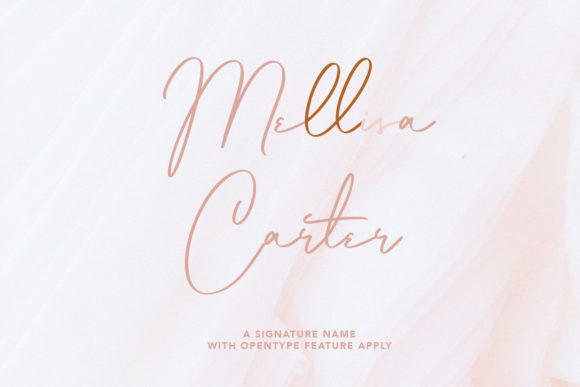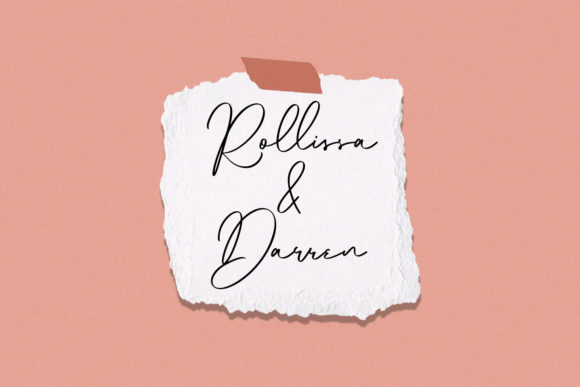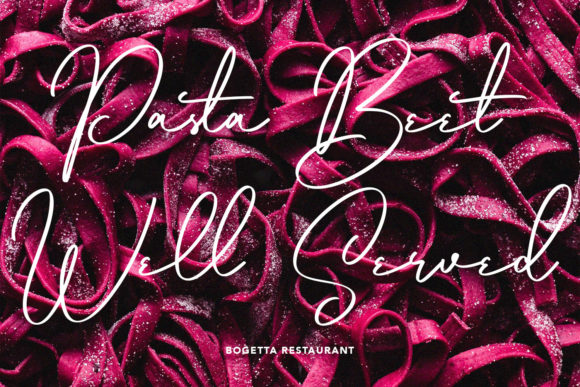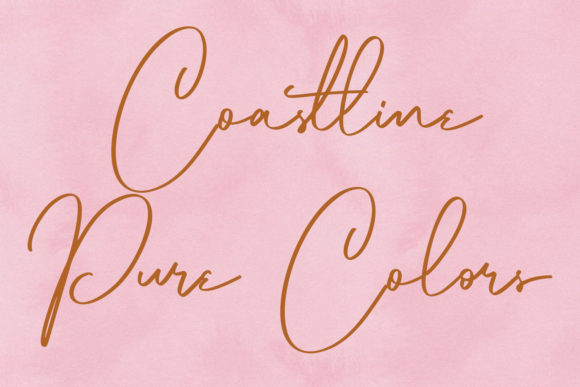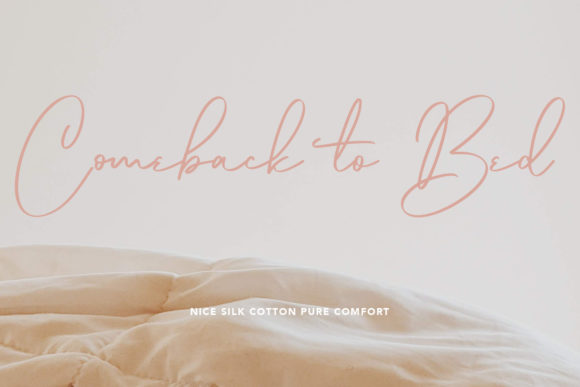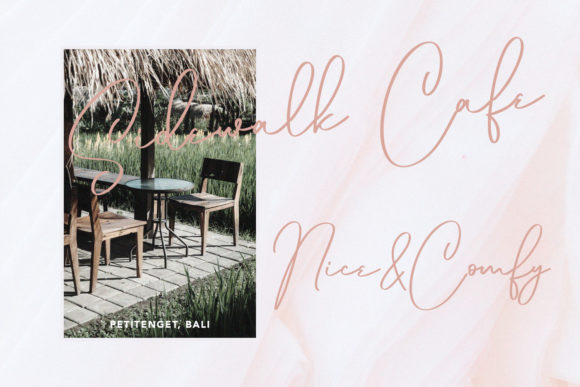
Introduction to Collibryums Font
Collibryums is a beautiful handwritten font.
Fall in love with its completely different and timeless style and use it to create spectacular designs .
Key Features of Collibryums Font
Why Choose Collibryums Font?
Collibryums Font offers exceptional quality and versatility, making it a valuable addition to your design toolkit. Whether you’re creating for personal projects or commercial use, Collibryums Font delivers professional results.